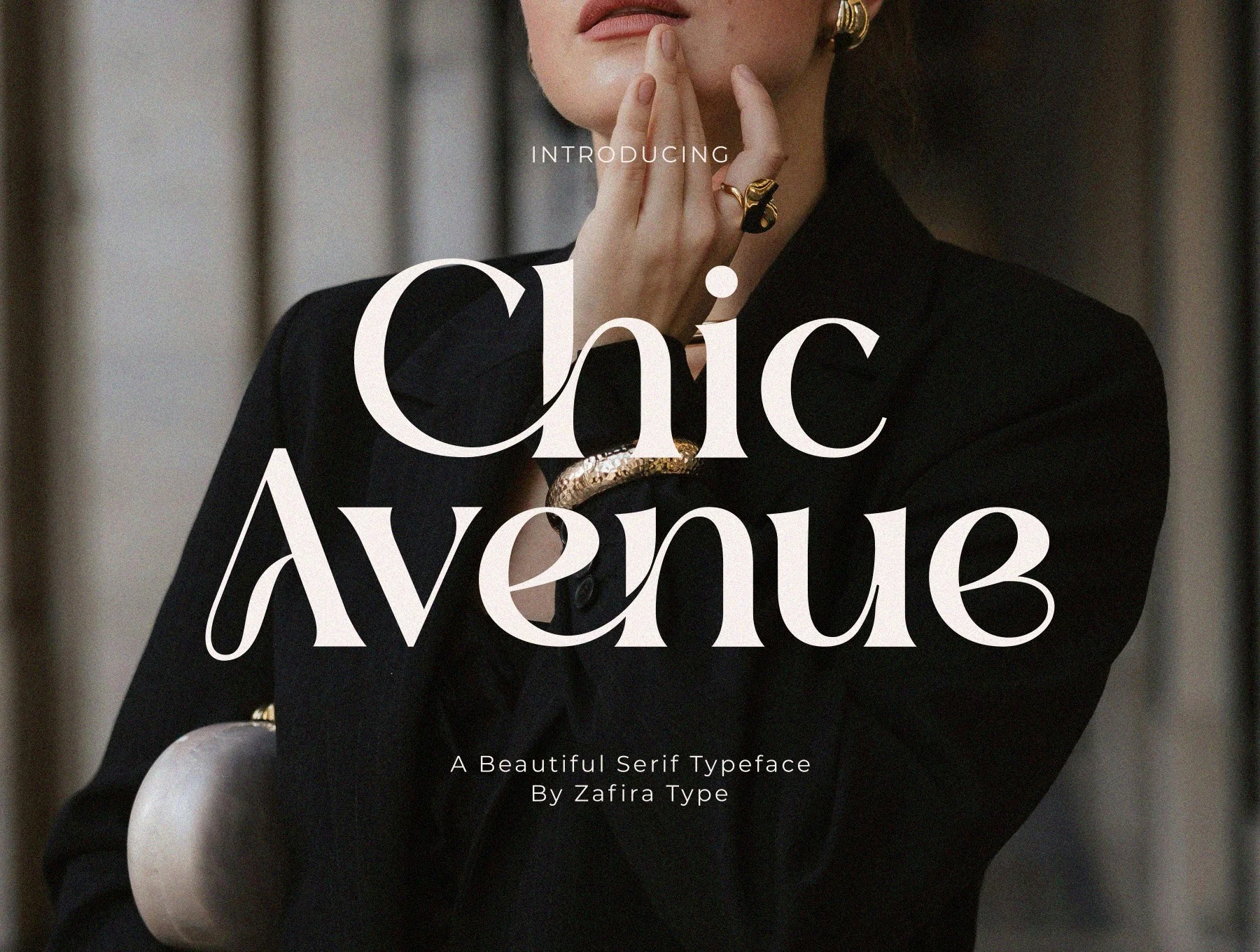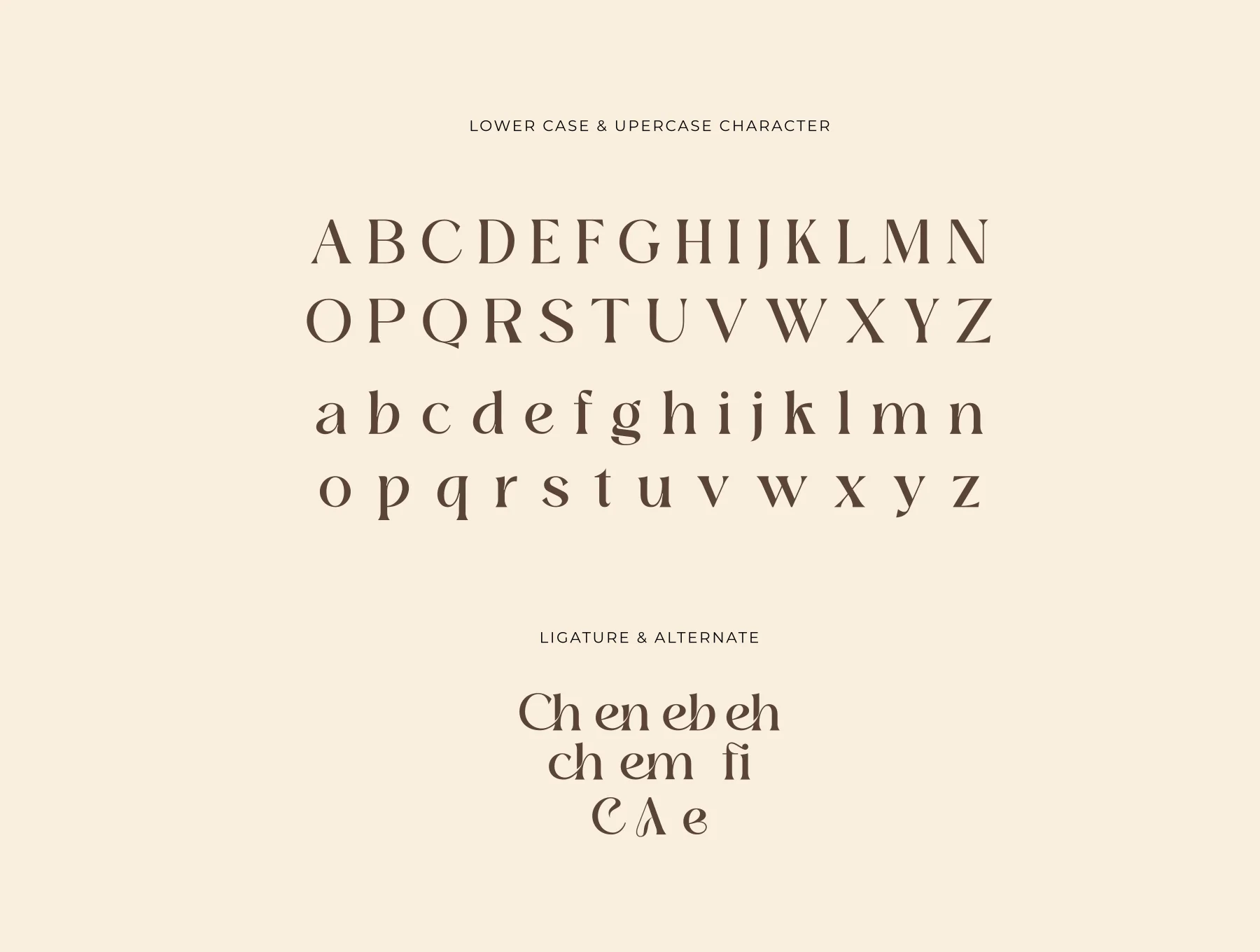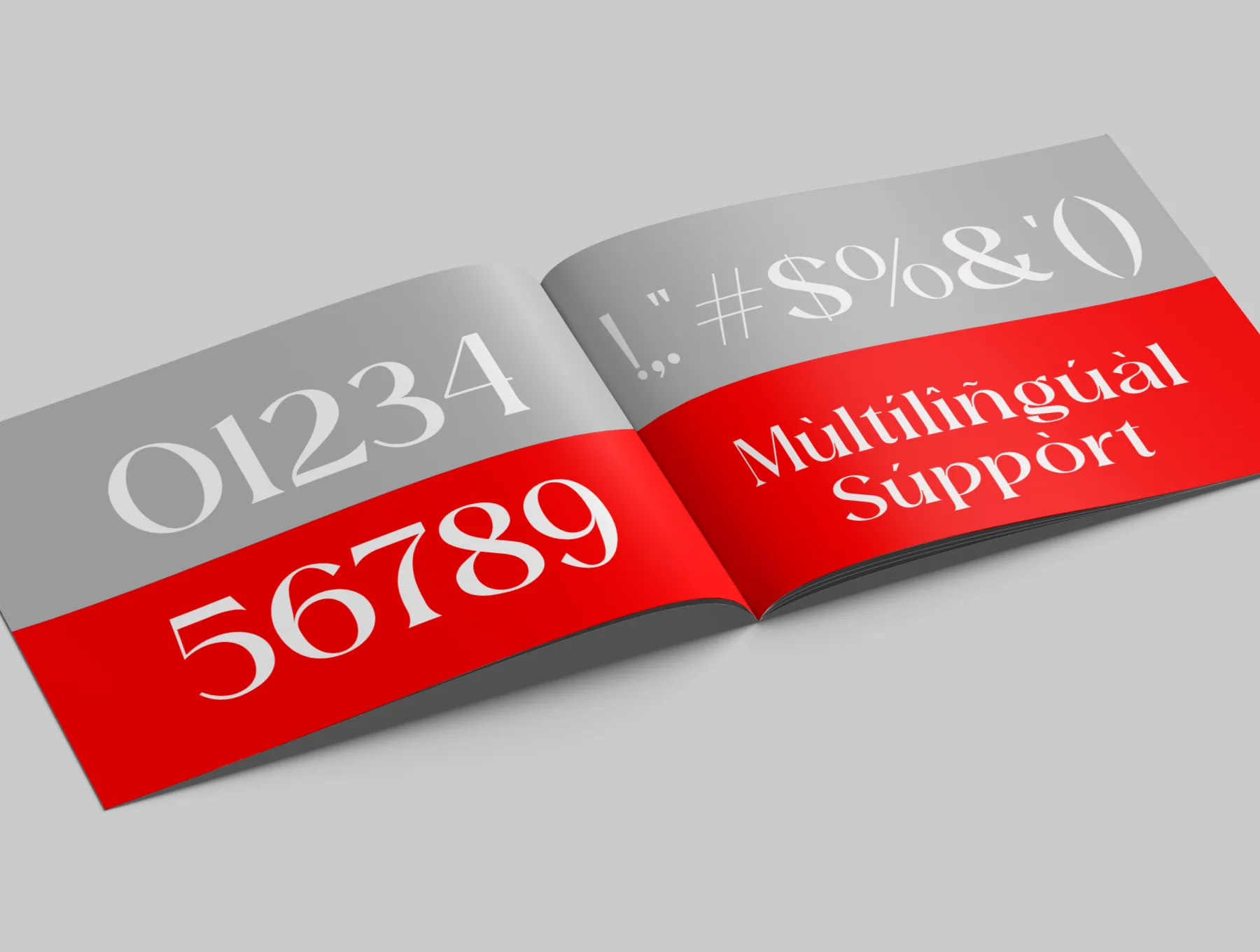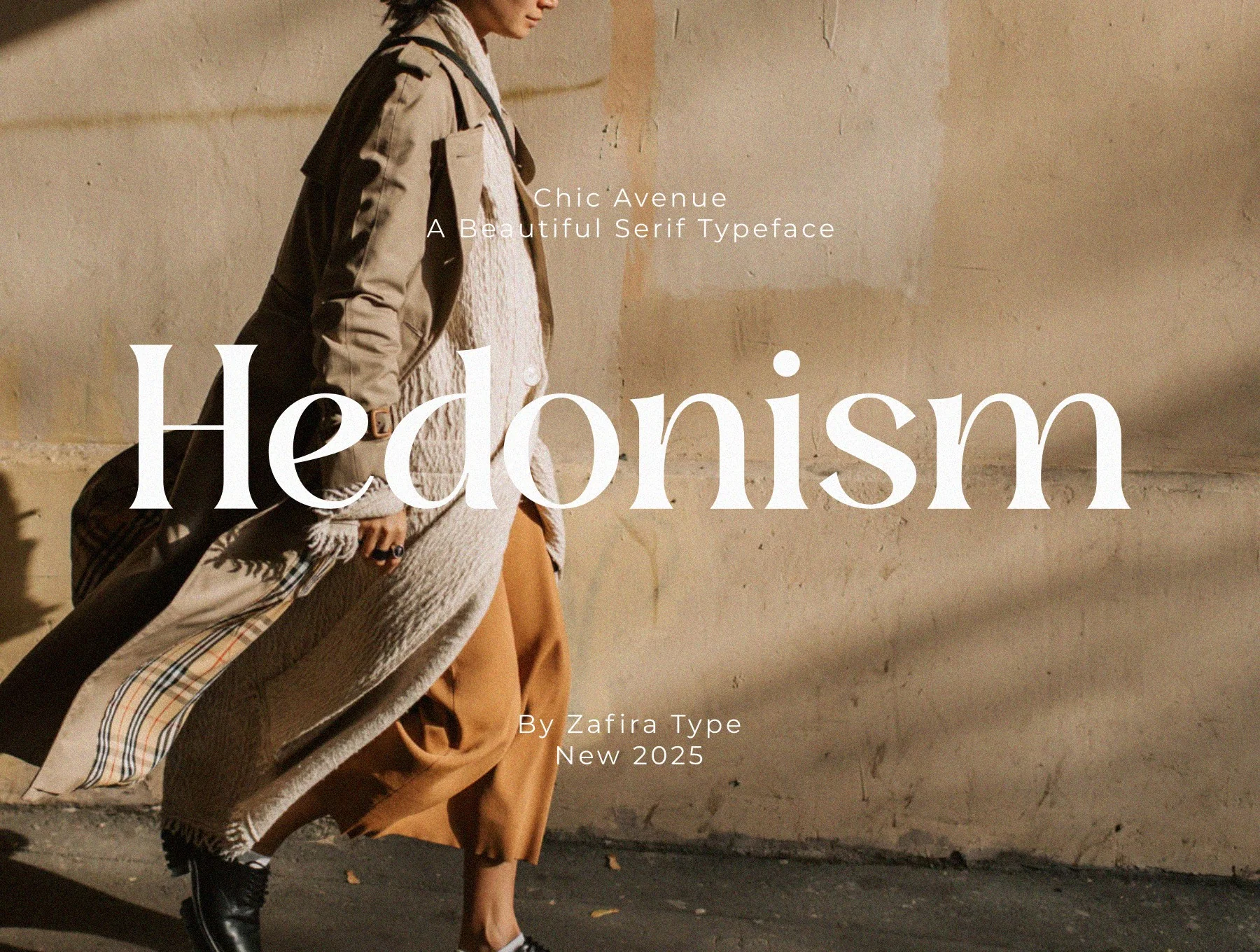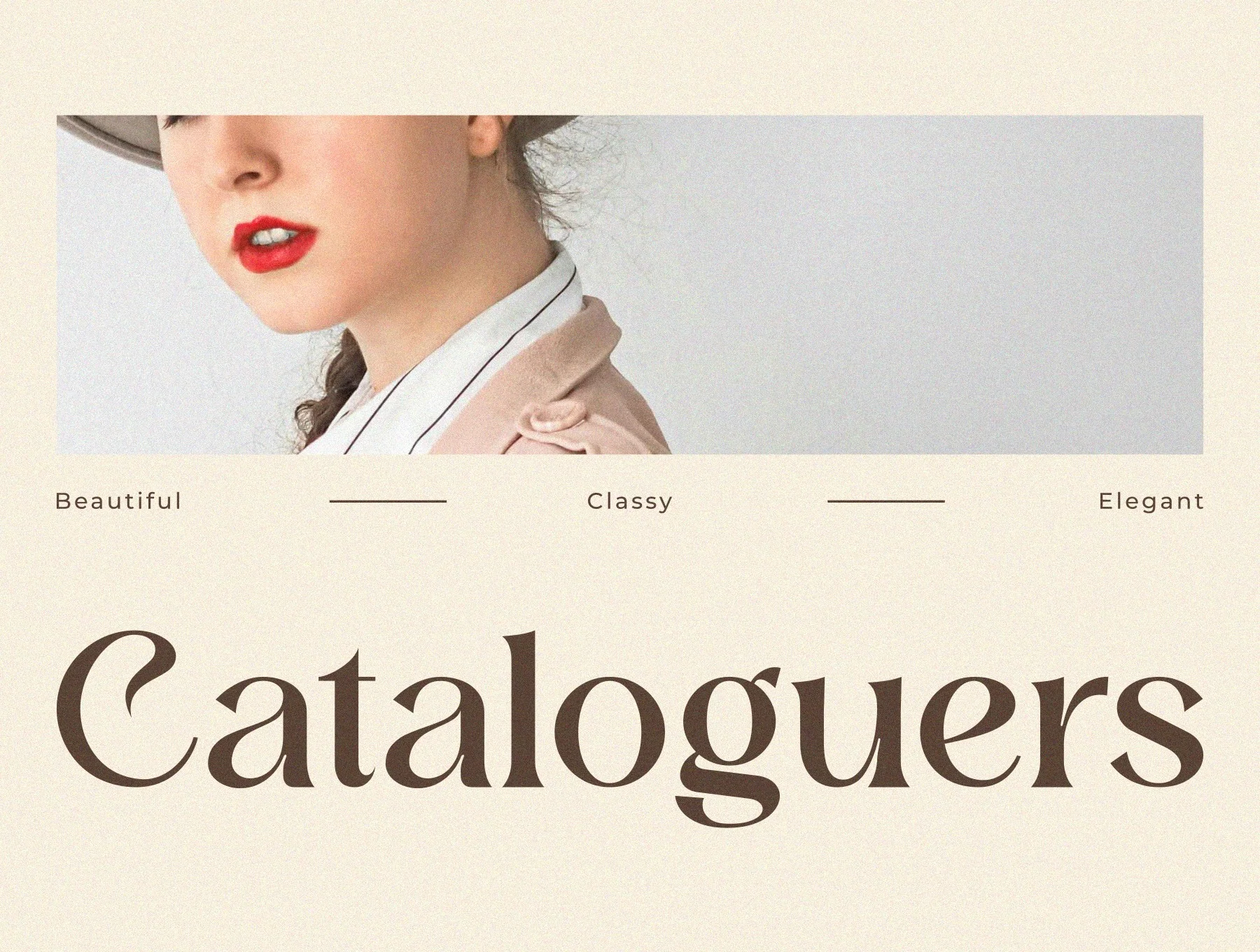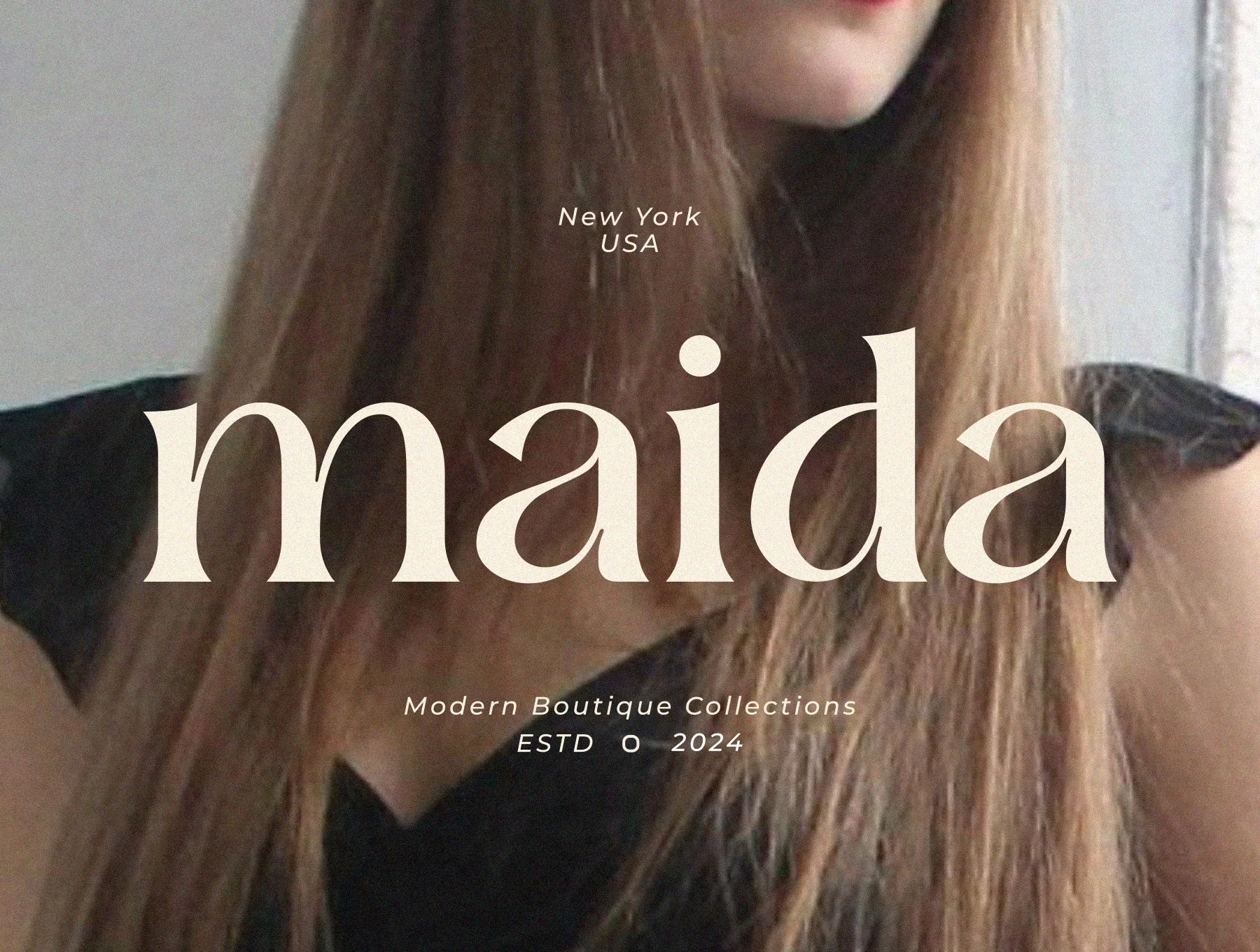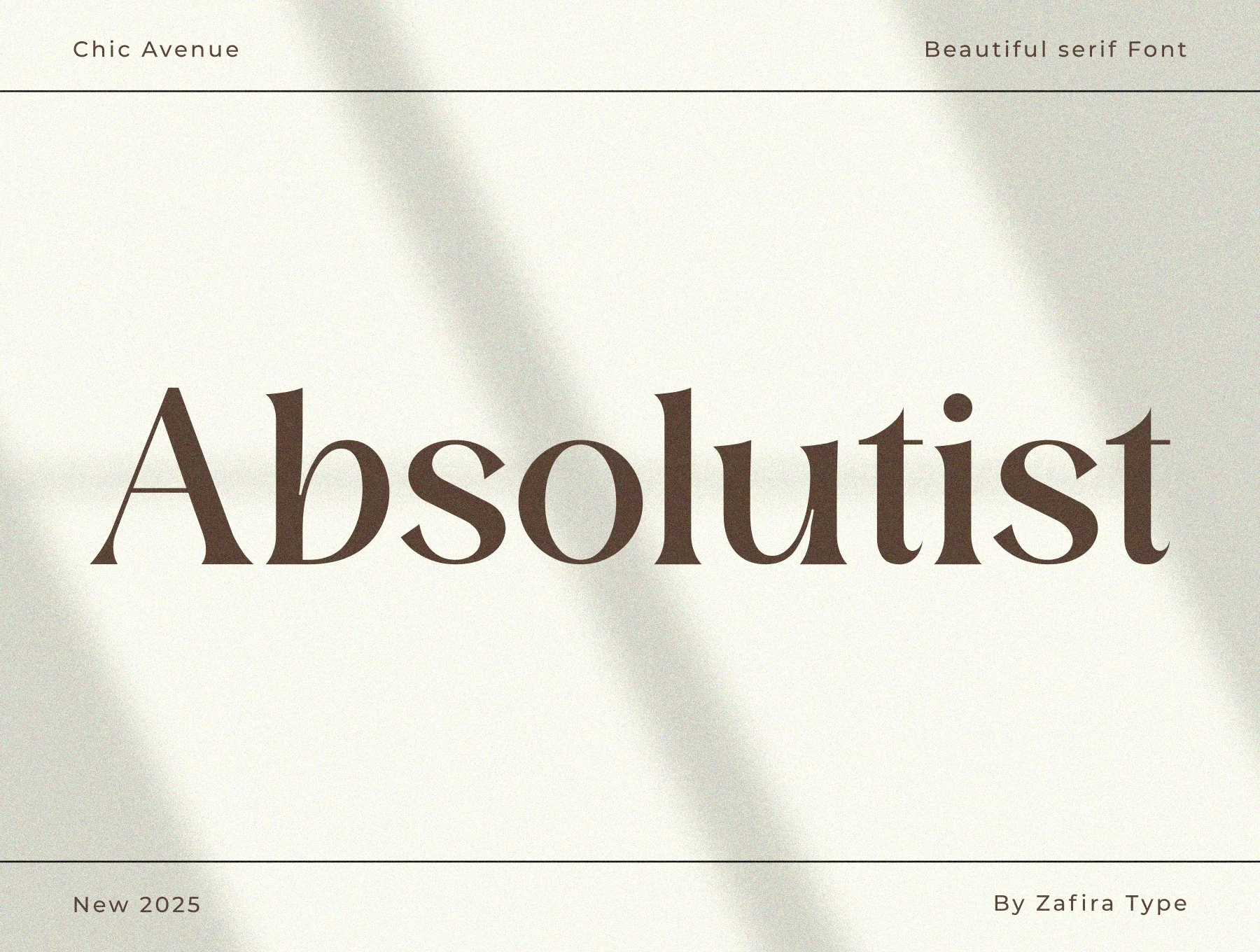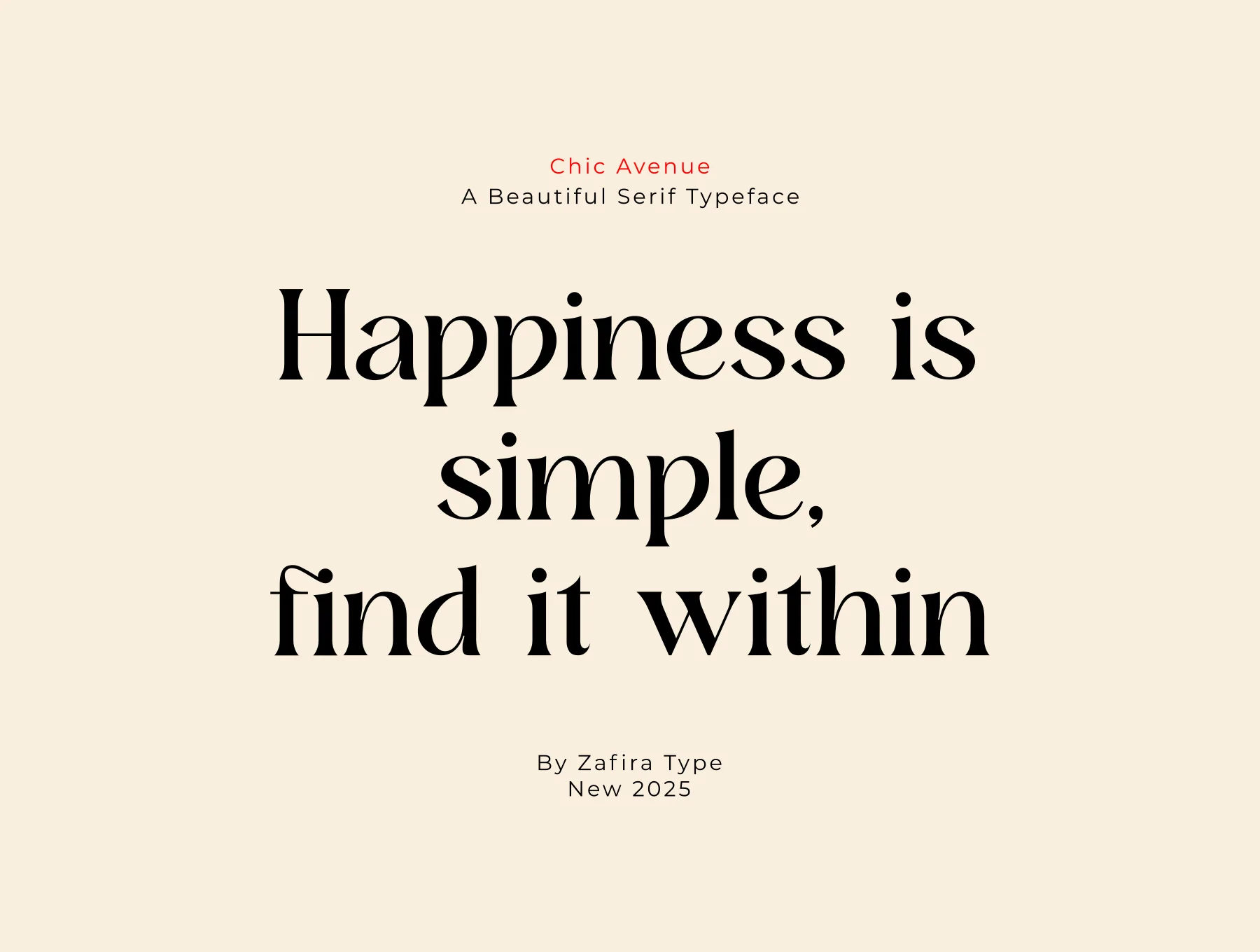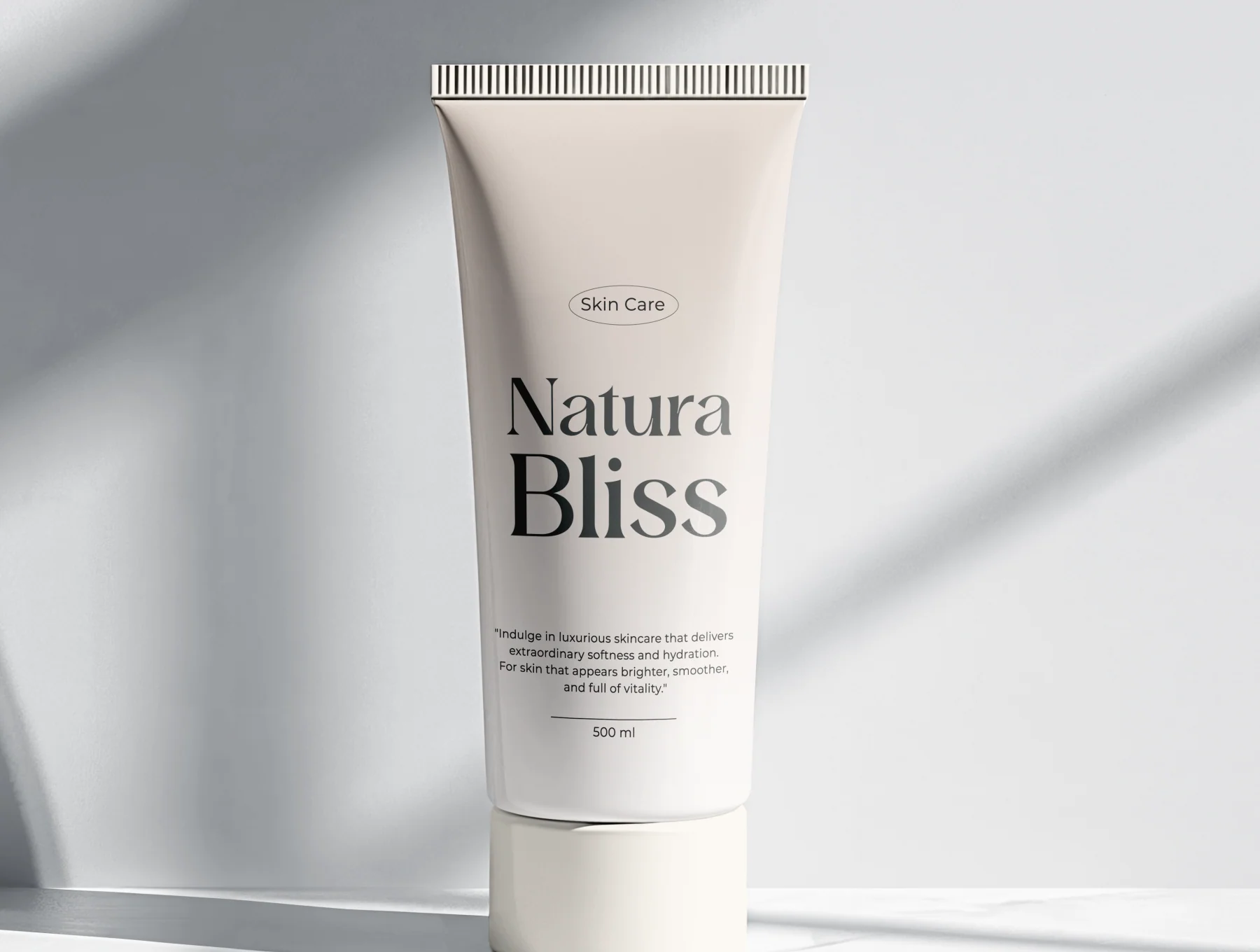
Chic Avenue Beautiful Serif Font
Chic Avenue is a refined, stylish serif typeface
Regular glyph set
Decorative alternates and ligature options
Support for many languages
Chic Avenue is a refined serif typeface with flowing curves and a polished, upscale look. Ideal for identities, logos, invites, promotions, and stylish creative work, it blends timeless charm with modern clarity. Includes Regular in OTF, TTF, and WOFF, standard glyphs, numbers, symbols, ligatures, alternates, easy install, PC/Mac support, and use in Adobe apps or Microsoft Word.